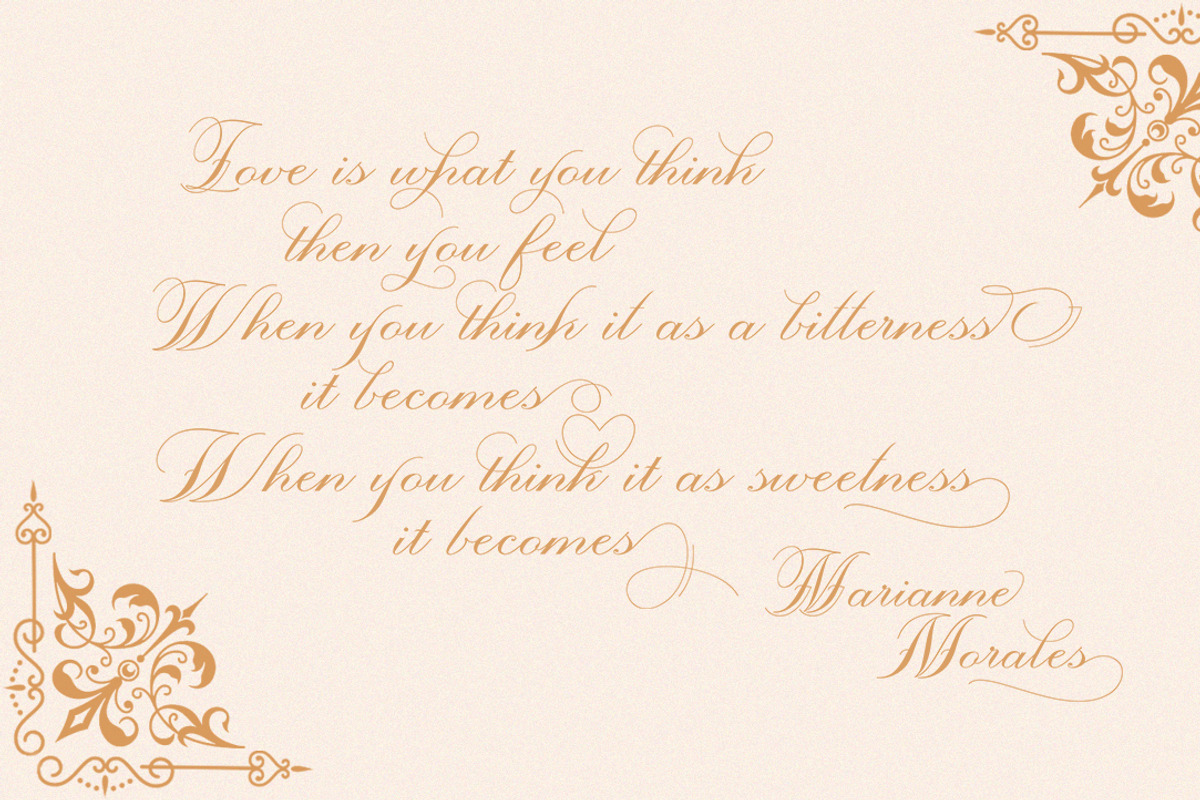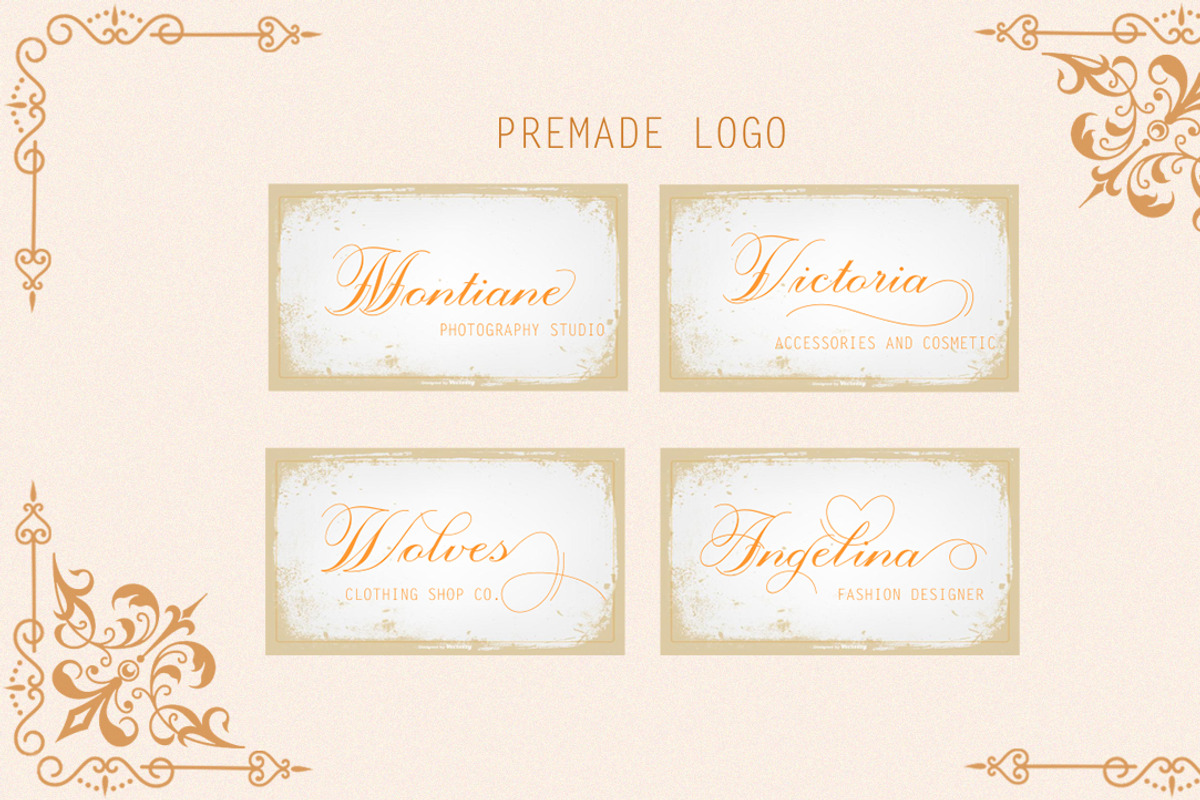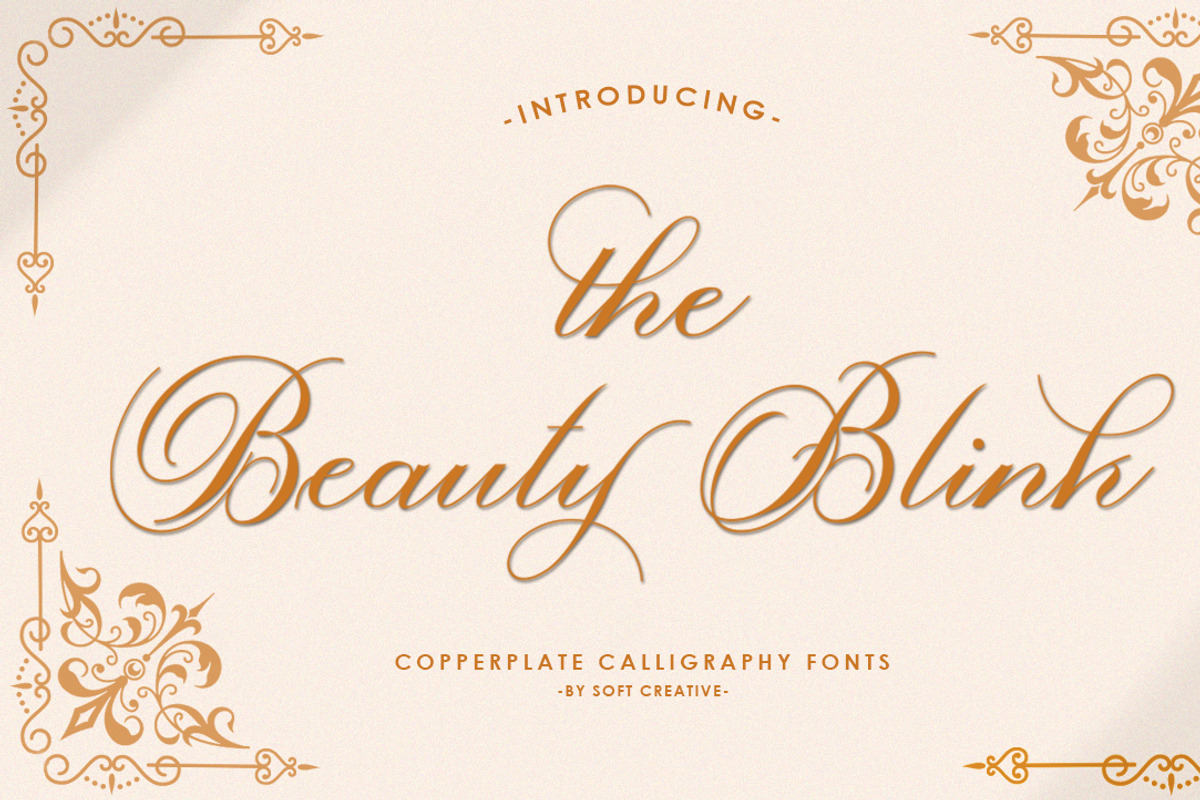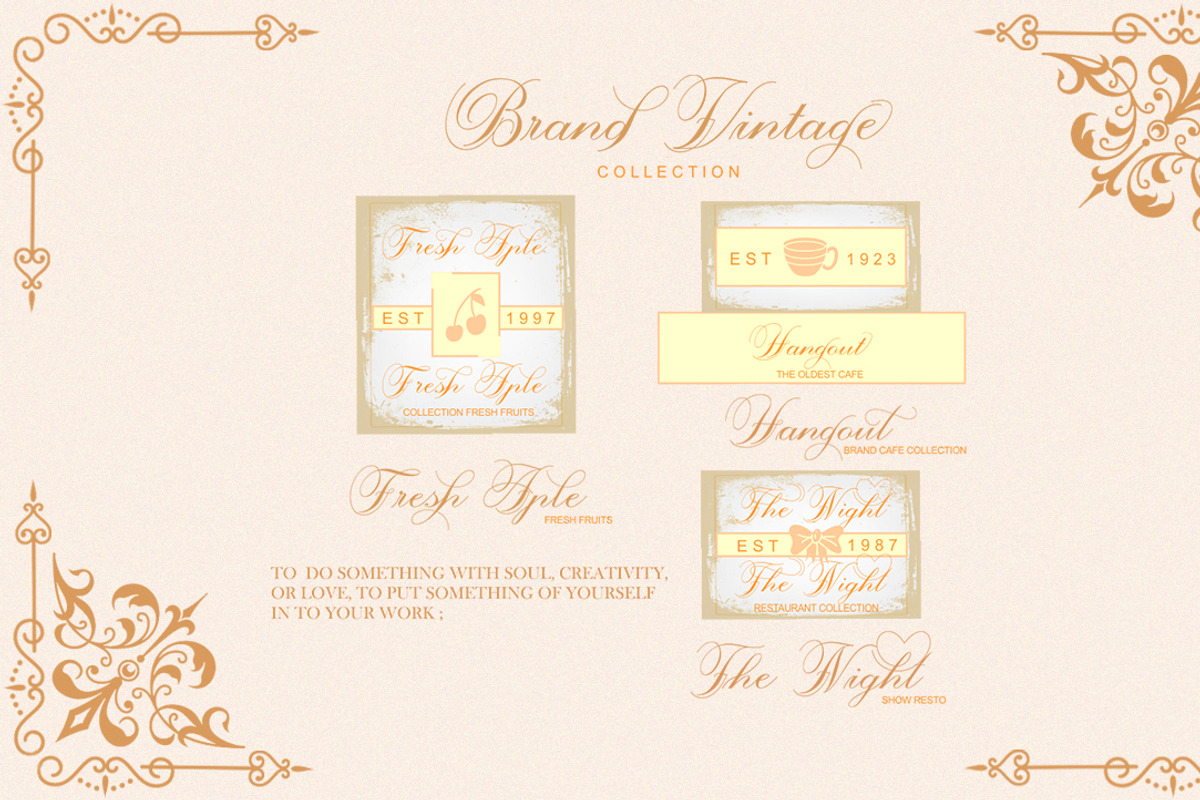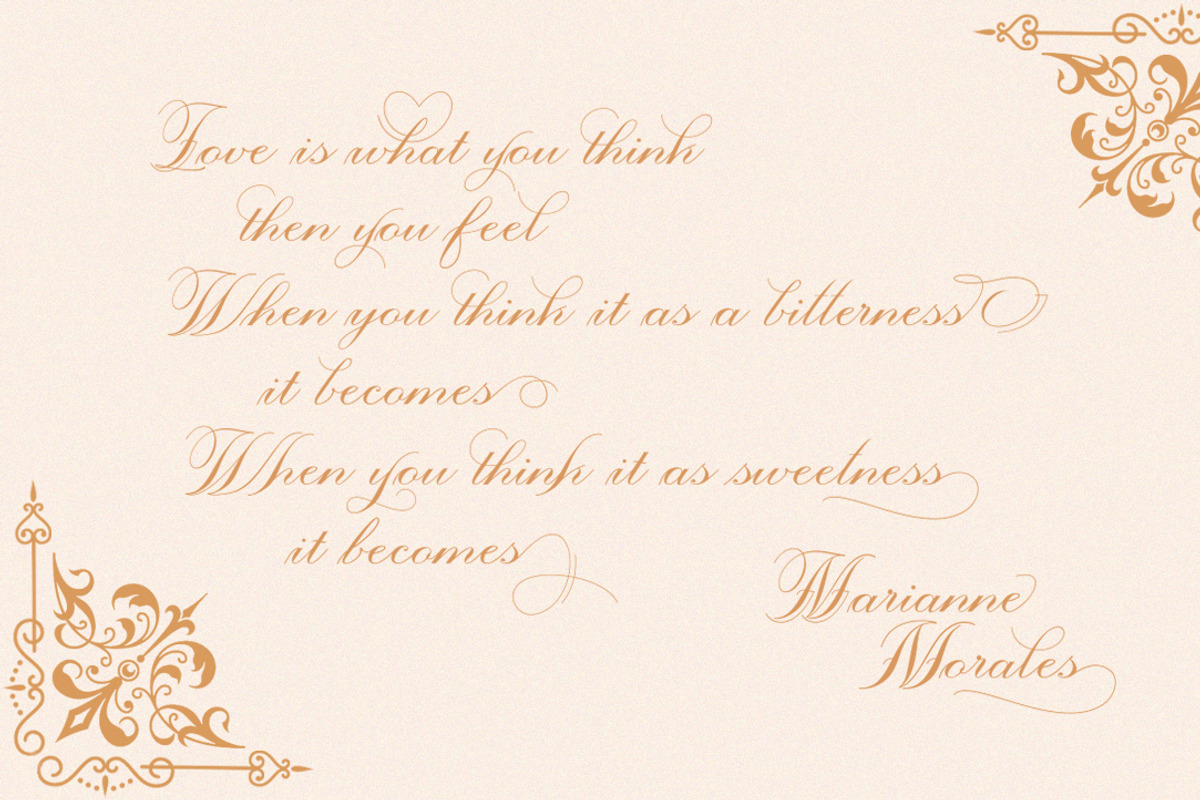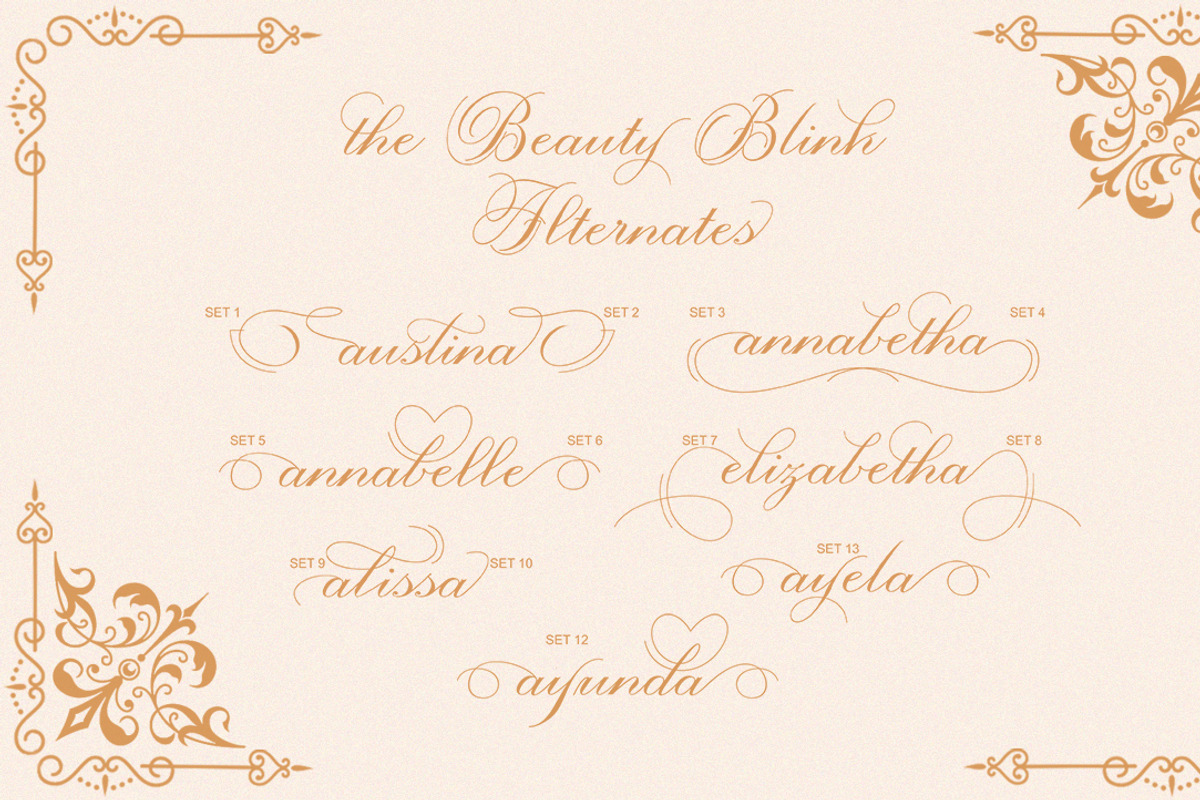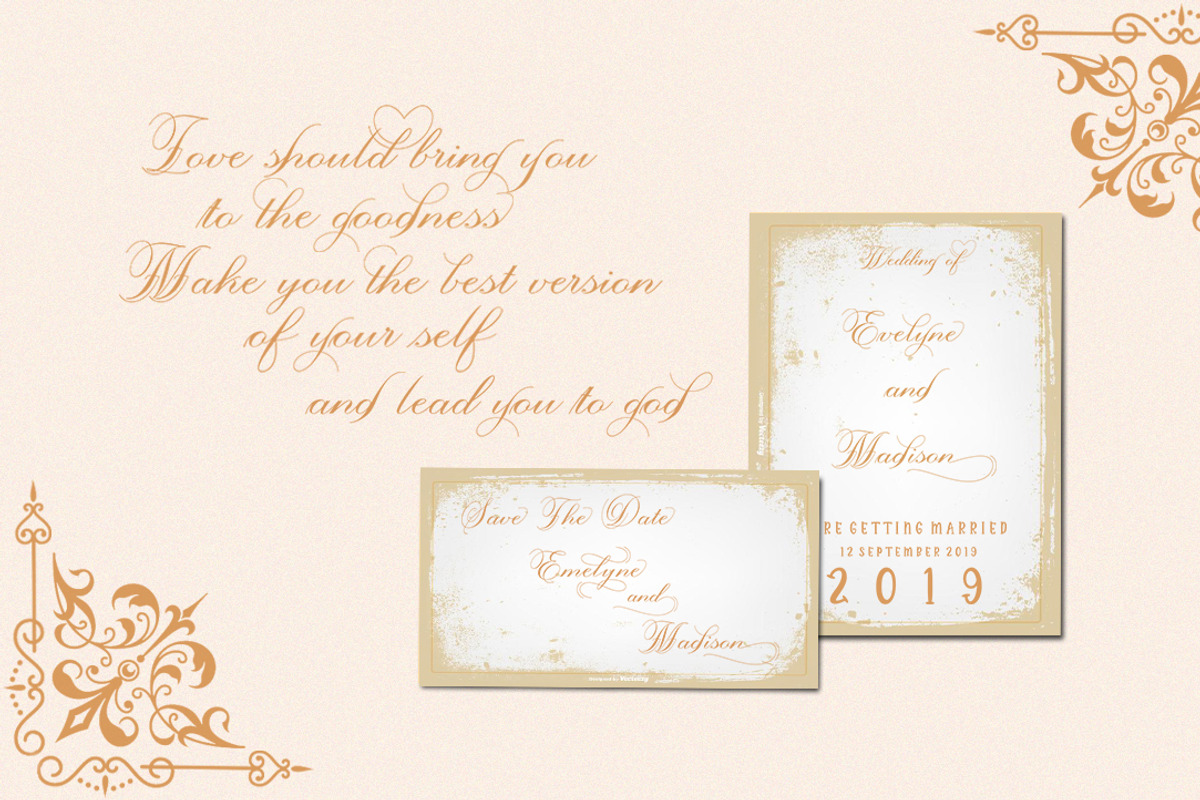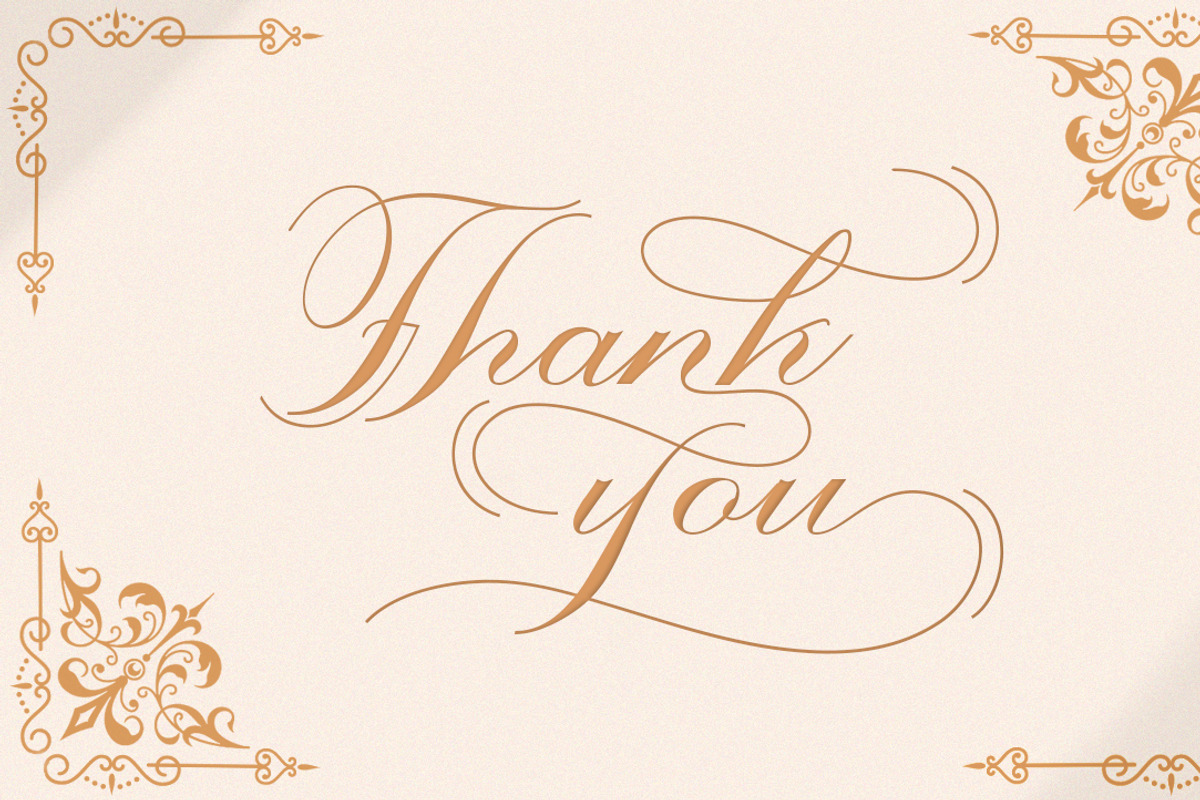
The Beauty Blink
Introducing the elegant Blink Script Beauty Calligraphy font.
The Beauty Blink Script is a classic calligraphy font. This is a classic thin font with an italic style. Here you will get beautiful classic fonts. This font is available in several modern swirls that can make your work look elegant, sweet and perfect.
With this style, this font would be perfect for logos, branding projects, homeware designs, product packaging, mugs, quotes, posters, shopping bags, logos, t-shirts, book covers, business cards, invitation cards, greeting cards, and more. all other beautiful projects.
Beauty Blink Script has many alternative characters, including multiple language support. You can use this font for your work very easily. Because there are many features in it. Contains a full set of upper and lower case letters, punctuation marks, numbers, and multilingual support. This font also includes several ligatures and alternative styles. Stylistic Set For those of you who have software that can work with OpenType (Corel Draw / Photoshop / Illustrator / InDesign).